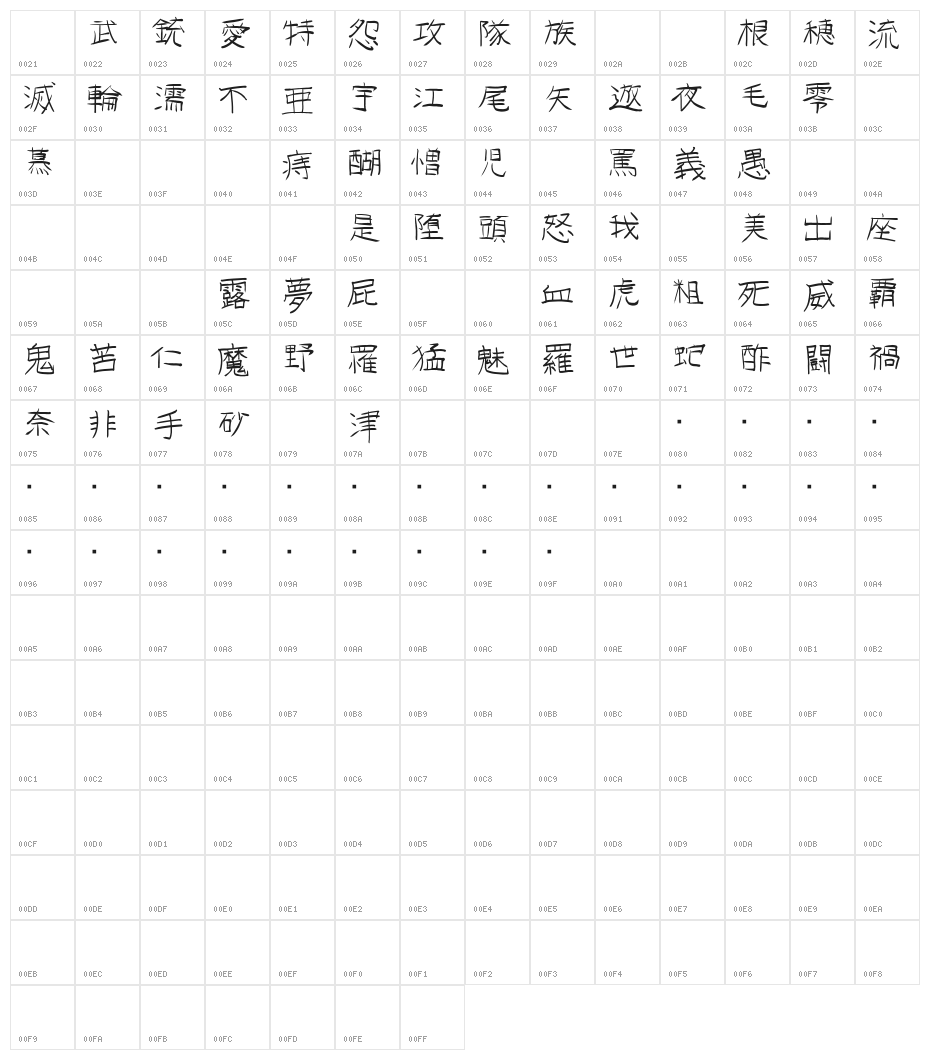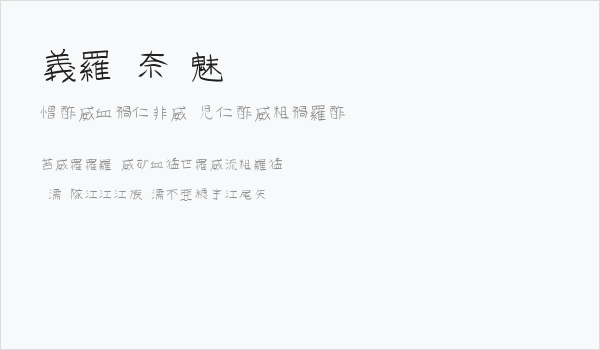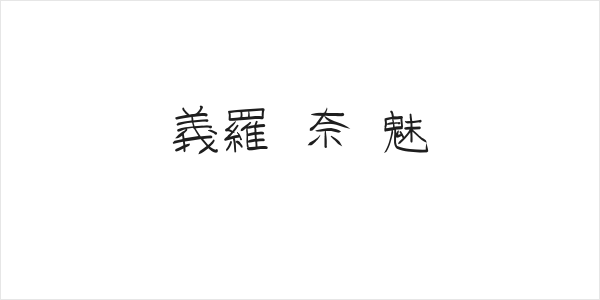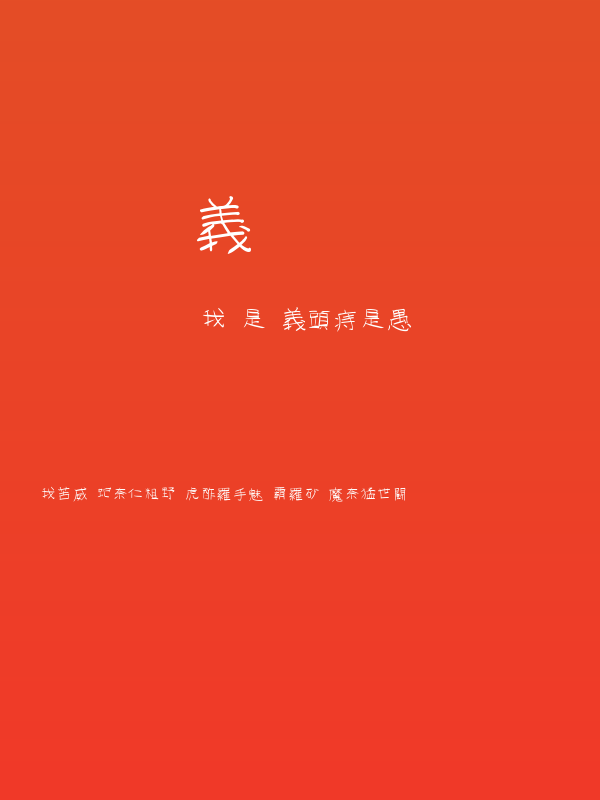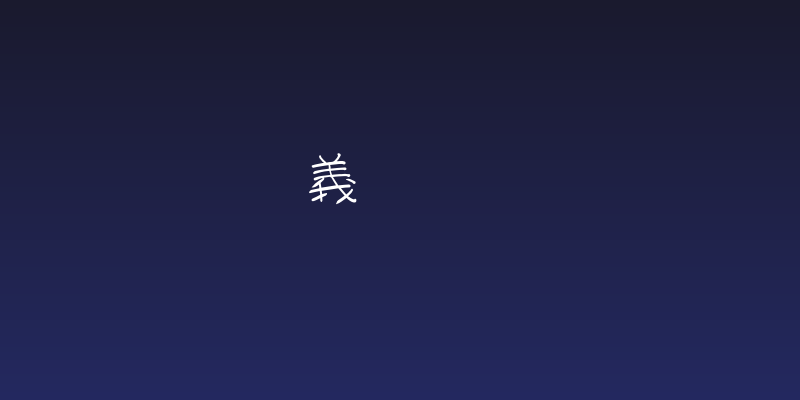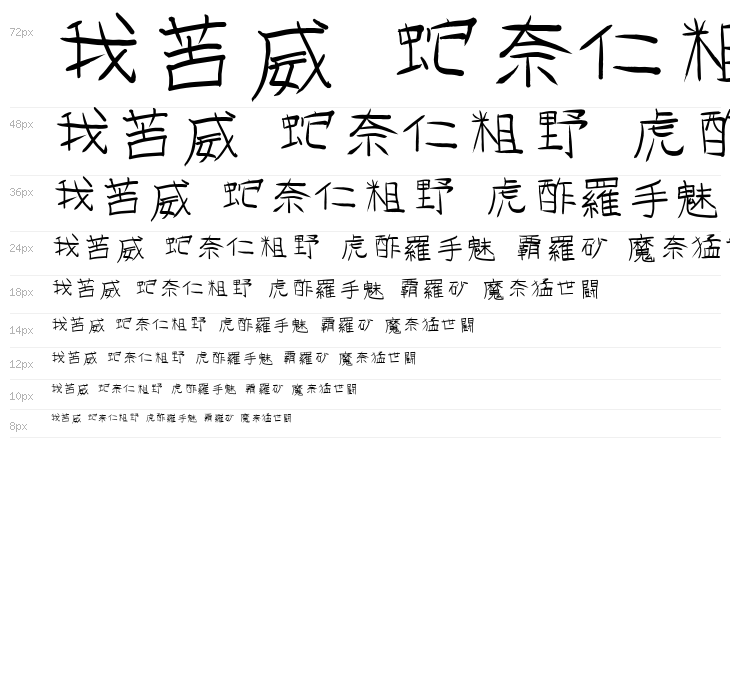
GoJuOn Font
GoJuOn Description
This font features a unique blend of traditional and modern elements, characterized by its brush-like strokes and dynamic flow. The characters exhibit a sense of movement and fluidity, reminiscent of calligraphic styles. Each glyph maintains a consistent weight, providing a balanced appearance across the text. The strokes are slightly irregular, adding a handcrafted feel that enhances its artistic appeal. The font's design is both elegant and expressive, making it suitable for projects that require a touch of sophistication and creativity. Its distinct style captures attention while remaining legible, making it versatile for various design applications.
| Overall Style | Modern, Artistic |
| Proposed Projects | Ideal for branding, invitations, posters, and artistic projects that require a creative and elegant touch. |